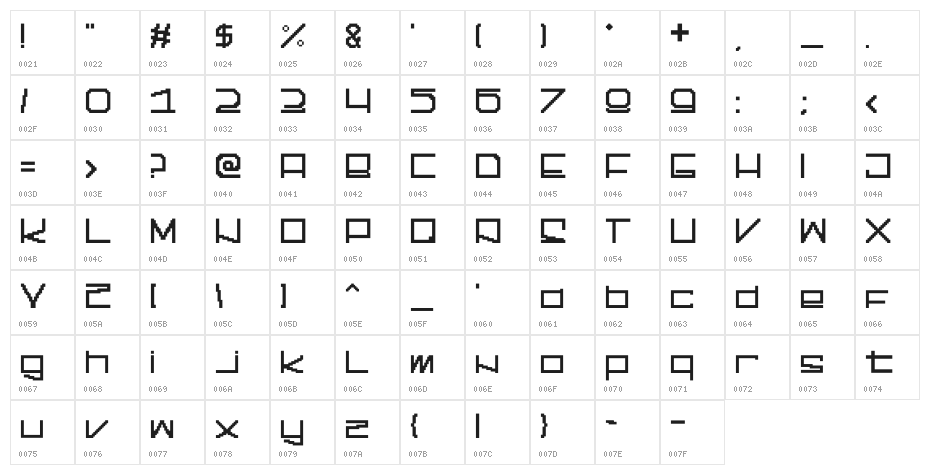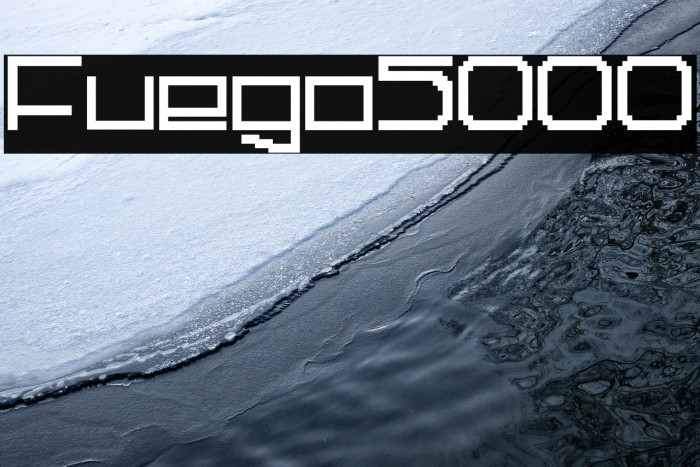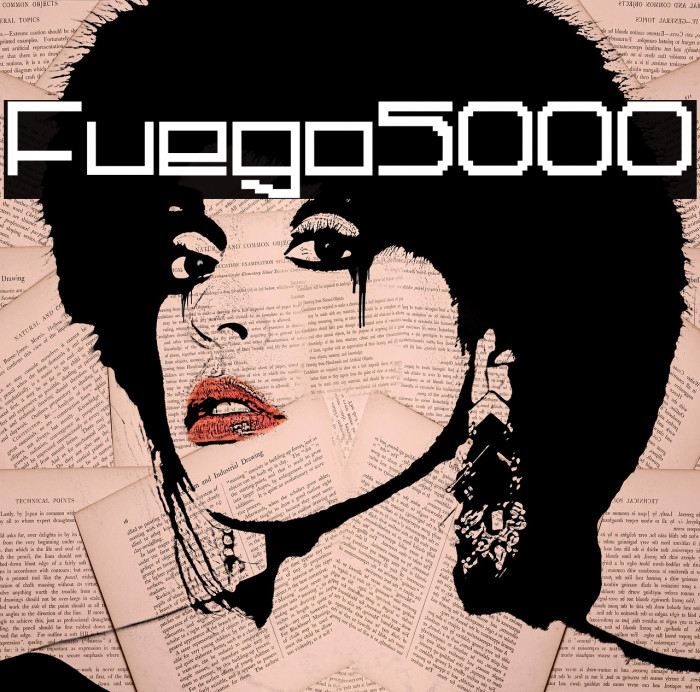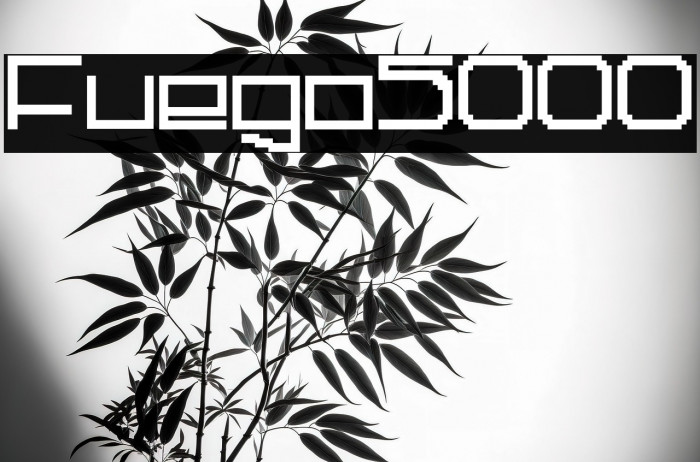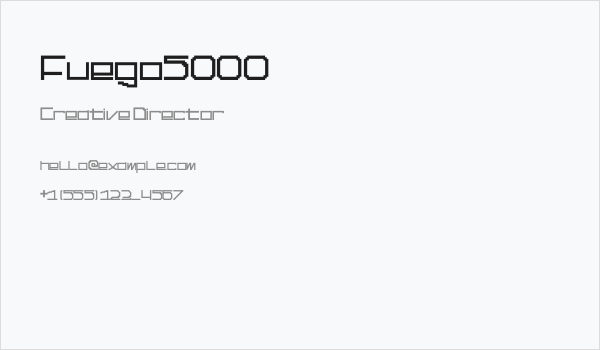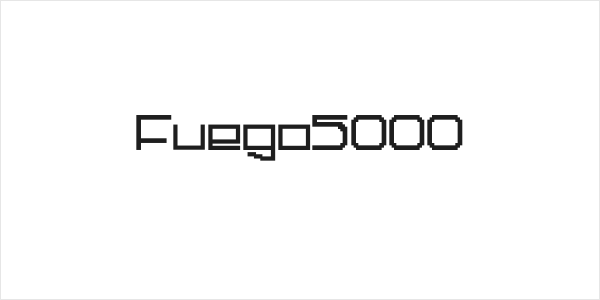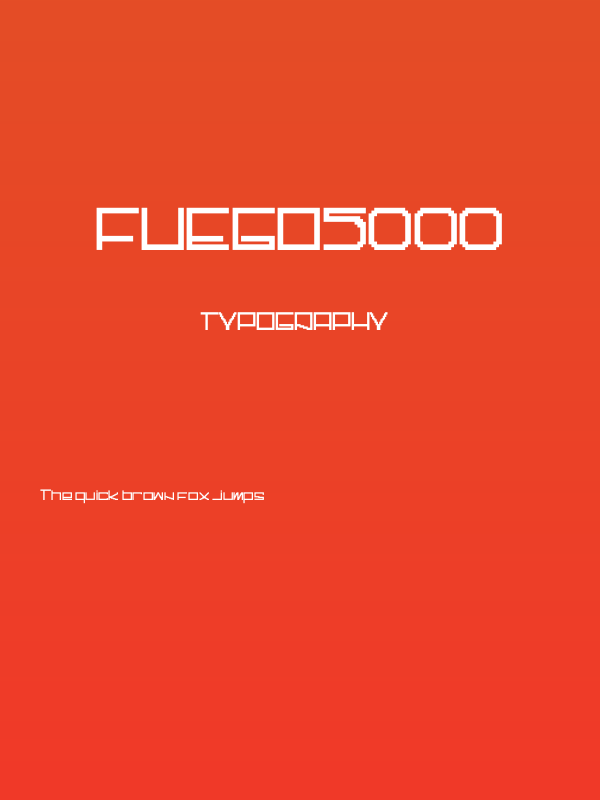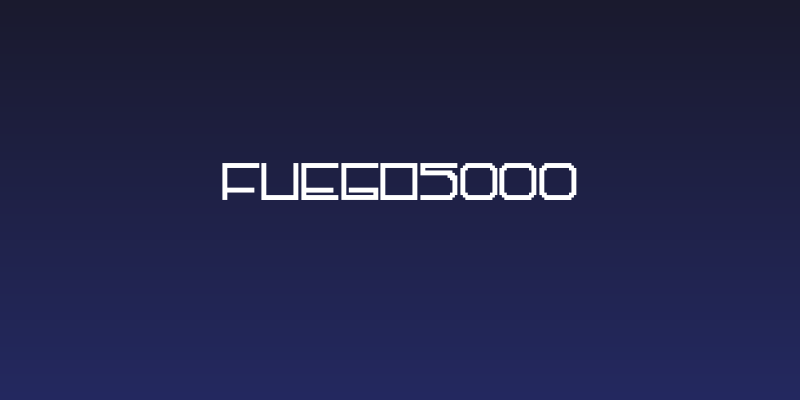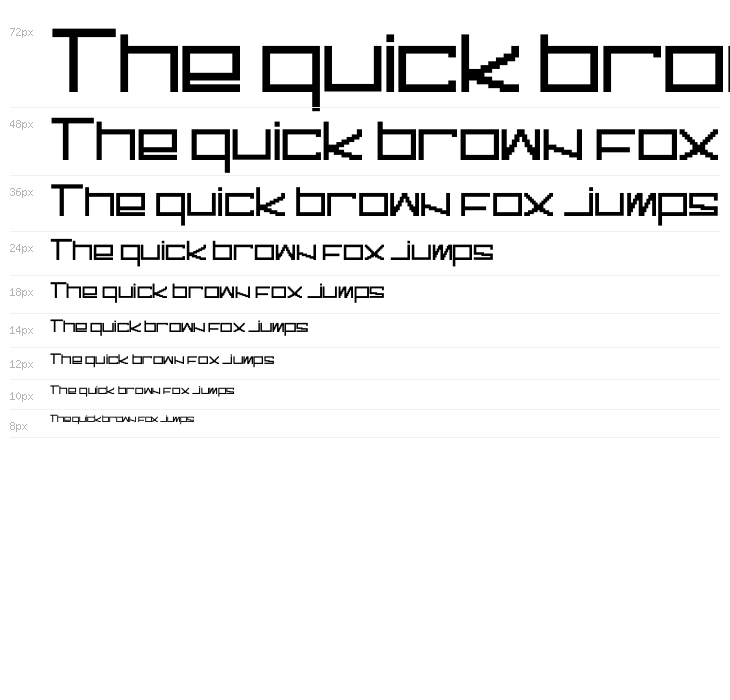
Fuego5000 Font
Fuego5000 Description
This font features a bold, pixelated design reminiscent of early digital displays and retro video games. Each character is constructed with a blocky, geometric style, giving it a distinctly digital and futuristic appearance. The uppercase and lowercase letters maintain a consistent height, contributing to a uniform look. The numerals and special characters follow the same pixelated theme, ensuring cohesion across all elements. This font's unique style makes it stand out, offering a nostalgic yet modern feel.
Overall StyleRetro, Digital
Use CaseLogos, Posters, Digital Art
Proposed ProjectsIdeal for video game designs, retro-themed posters, digital art projects, and tech-related branding.